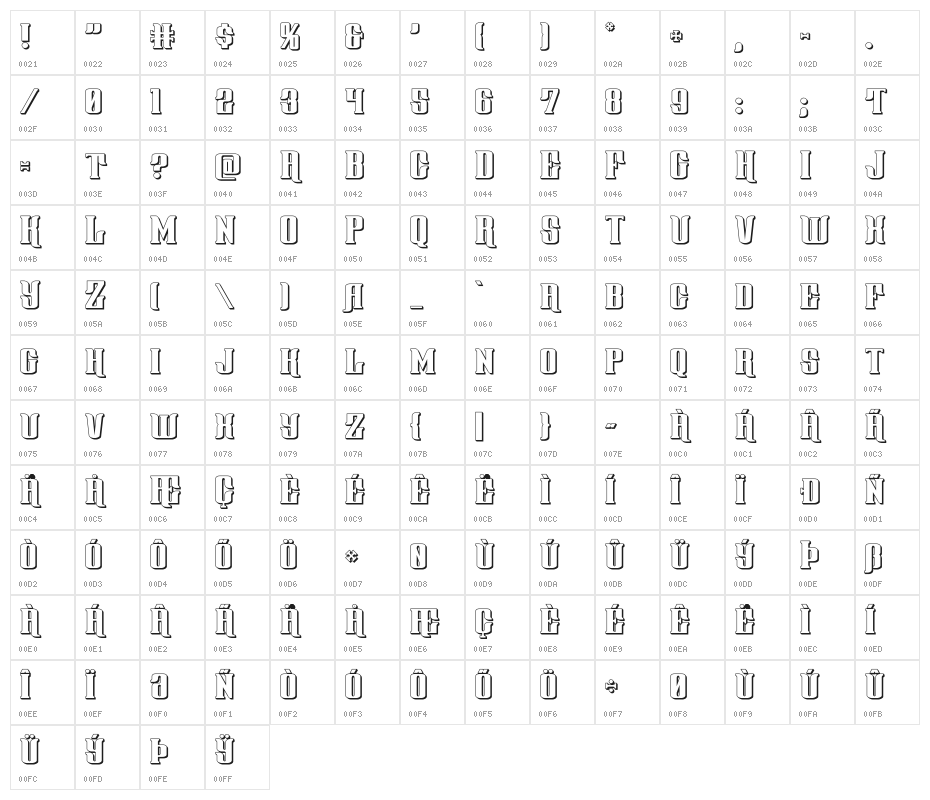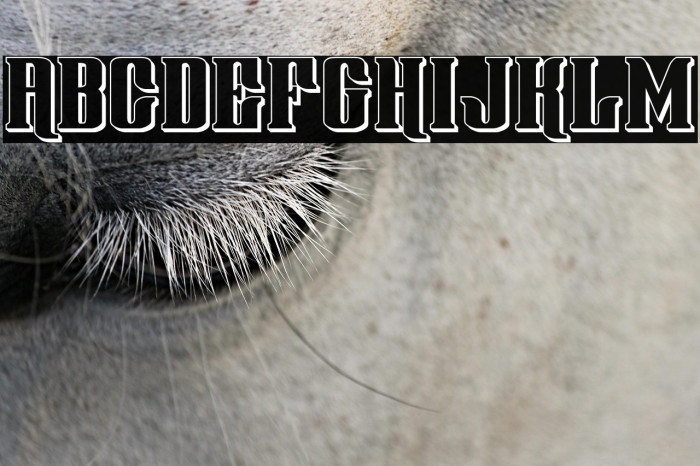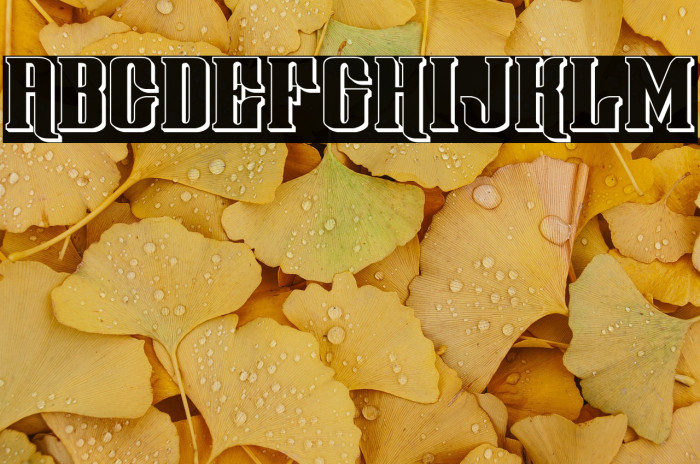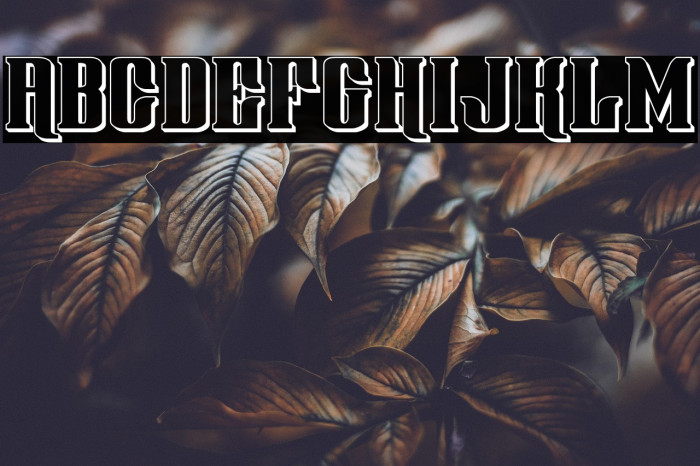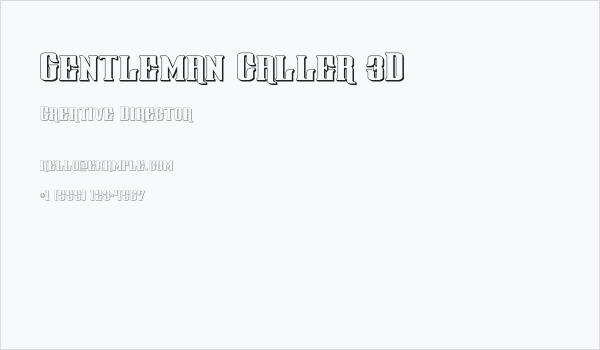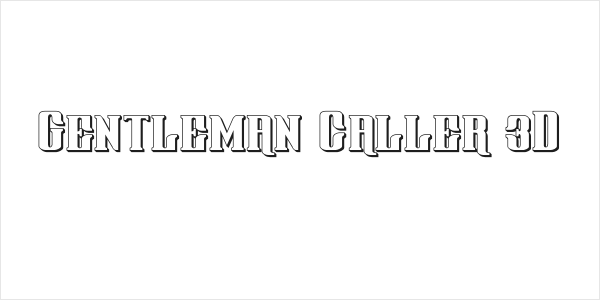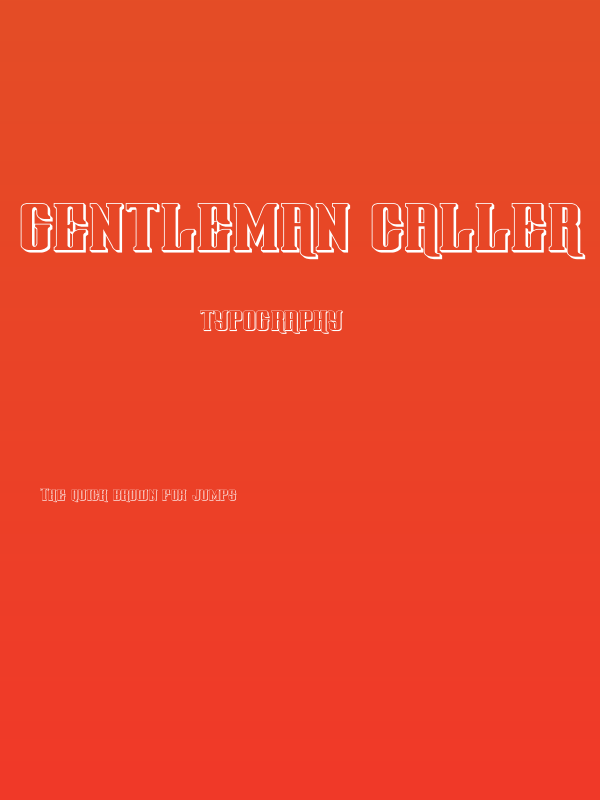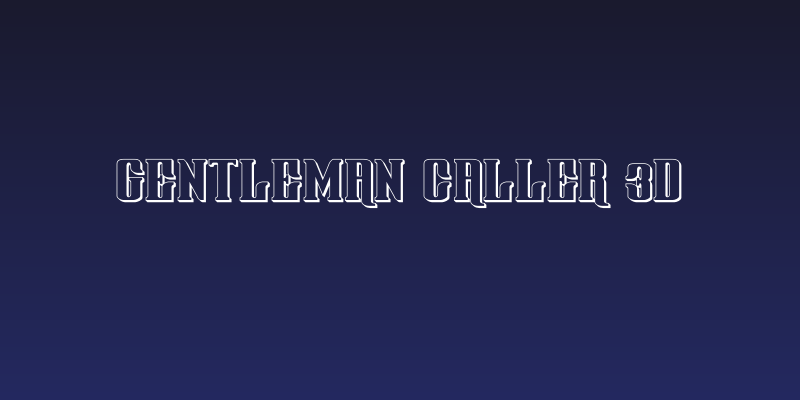
Gentleman Caller 3D Font
Gentleman Caller 3D Description
This font features a bold, three-dimensional style with a strong presence. Each character is outlined with a shadow effect, giving it a distinct, eye-catching appearance. The uppercase letters are particularly striking, with sharp angles and a blocky structure that conveys strength and stability. The numbers and special characters maintain this robust design, ensuring consistency across all elements. The font's unique 3D effect makes it ideal for projects that require a standout, impactful look.
| Proposed Projects | Ideal for posters, headlines, logos, and any design needing a bold, attention-grabbing typeface. |